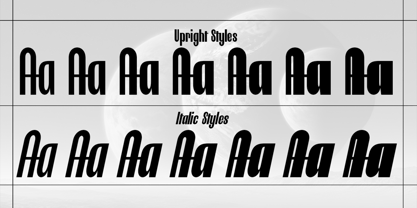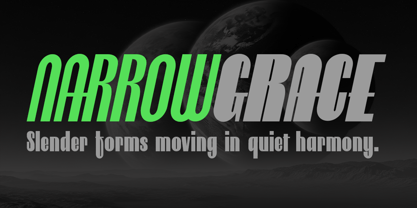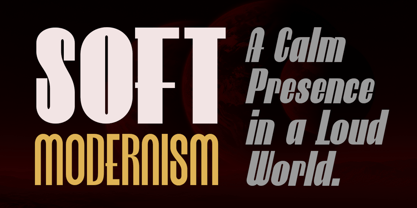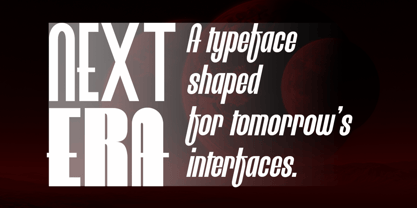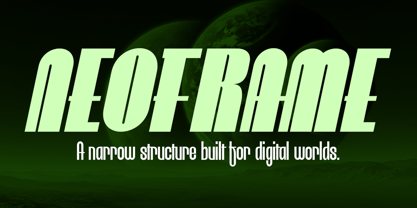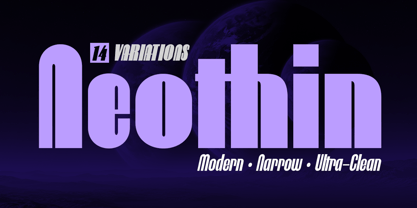
Neothin
by Artisan Studio
The Neothin Font Family was designed by Roiyani Teungku and published by Artisan Studio. Neothin contains 14 styles and family package options. More about this family
Neothin—Modern Narrow Sans Serif (14 Styles) Neothin is a refined narrow sans serif family designed for modern, minimalist, and futuristic aesthetics. Built with clean geometry and balanced spacing, Neothin delivers a sleek, elegant, and ultra-contemporary visual tone that fits perfectly in high-end branding, editorial layouts, digital interfaces, and aesthetic display designs. This family includes 14 styles—7 upright and 7 italic, ranging from light to black, giving you full control over contrast, mood, and visual impact. Whether you’re designing soft minimal aesthetics or bold futuristic headlines, Neothin adapts effortlessly. What’s Inside: 7 Upright styles: Light, Regular, Medium, SemiBold, Bold, ExtraBold, Black 7 Italic styles: Light Italic, Regular Italic, Medium Italic, SemiBold Italic, ExtraBold Italic, Black Italic Uppercase & lowercase Numerals & punctuation Multilingual support Perfect for: Branding & logo design Minimal posters & aesthetic social media Editorial & magazine layouts UI/UX & web design Tech, futuristic, and clean modern projects Packaging & product identity Why Neothin? Its narrow proportions, smooth curves, and calm visual rhythm create a sense of effortless elegance, while the full weight range provides flexibility for any creative direction — from subtle editorial to striking display typography